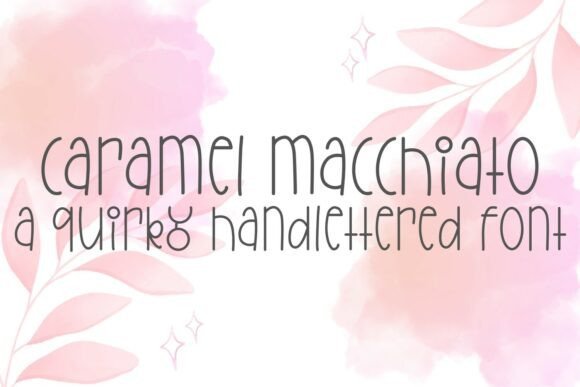
The Perfect Blend: Unveiling the Clcaramelmacchiato Font
Have you ever found yourself doodling in a notebook, letting your pen wander across the page as you experiment with different shapes and lines? It’s a moment of pure creative freedom, where the world outside fades away, and all that matters is the flow of your thoughts and the joy of self-expression. This is exactly the kind of energy that the Clcaramelmacchiato Font embodies.
Designed to radiate warmth and playfulness, this quirky handwritten display font is perfect for adding a personal touch to your designs. Its unique character set, with tall, narrow letterforms and whimsical strokes, makes it an ideal choice for branding, invitations, and social media posts that require a touch of authenticity and creativity.
Whether you’re a seasoned designer or a creative enthusiast, the Clcaramelmacchiato Font is a valuable addition to your toolkit. Its distinctive handmade aesthetic and lively energy make it a standout choice for projects that demand a unique and heartwarming touch.
Key Features of Caramel Macchiato Font
- Unique Characteristics: The Caramel Macchiato Font features a unique blend of modern and vintage elements, with a distinctive coffee-inspired design.
- Font Style: Script, Handwritten
Designer Review: Clcaramelmacchiato Font
Overall, I think Clcaramelmacchiato Font is a great addition to any design project. It’s a modern, elegant font that works well in a variety of contexts. ✨ Here are some of its strengths:
- Unique aesthetic: Clcaramelmacchiato Font has a distinctive, whimsical feel that sets it apart from more common fonts.
- Good legibility: The font is easy to read, even at smaller sizes, making it a great choice for body text or headlines.
- High-quality design: The font is well-designed, with careful attention paid to letter spacing, line height, and other details that can make or break a font’s usability.
However, like any font, Clcaramelmacchiato has its limitations. ⚠️ Here are some things to keep in mind:
- May not be suitable for all audiences: The font’s unique aesthetic may not appeal to everyone, particularly those who prefer more traditional or minimalist designs.
- May require adjustment: Depending on the context, you may need to adjust the font size, line height, or letter spacing to get the best results.
Overall, I think Clcaramelmacchiato Font is a great choice for designers who want to add some personality to their projects. With its unique aesthetic and high-quality design, it’s a great option for a wide range of applications.
Clcaramelmacchiato Font is ideal for creating a modern and elegant look in your designs. Here are some tips to get the most out of it:
- Use it for headings and titles to create a bold and eye-catching effect
- Pair it with a sans-serif font for body text to create a clean and modern look
- Experiment with different font sizes and styles to create a unique visual hierarchy
Oswald is a sans-serif font that is clean and modern. It is ideal for use in titles, headings, and short paragraphs where a clear and concise message is needed. Oswald is a great alternative to Clcaramelmacchiato Font as it offers a similar level of sophistication and elegance, but with a more minimalist approach.
Comparison to Clcaramelmacchiato Font: Oswald is more straightforward and less ornate, making it a good choice for projects where simplicity is key.
Playfair Display is an elegant and luxurious script font that is perfect for use in titles, headings, and other display text. It adds a touch of sophistication and glamour to any design. Playfair Display is a good alternative to Clcaramelmacchiato Font for projects that require a high level of luxury and elegance.